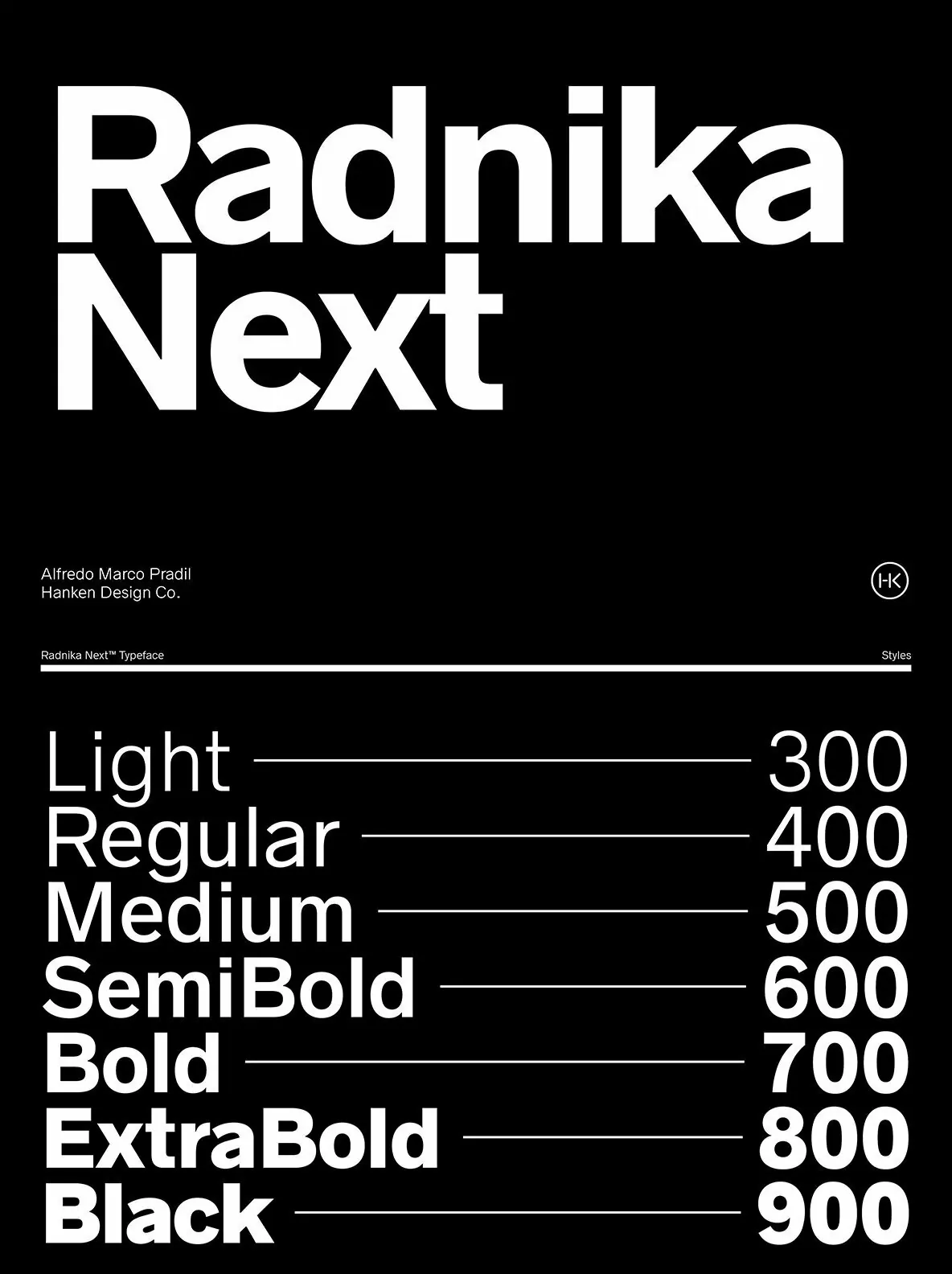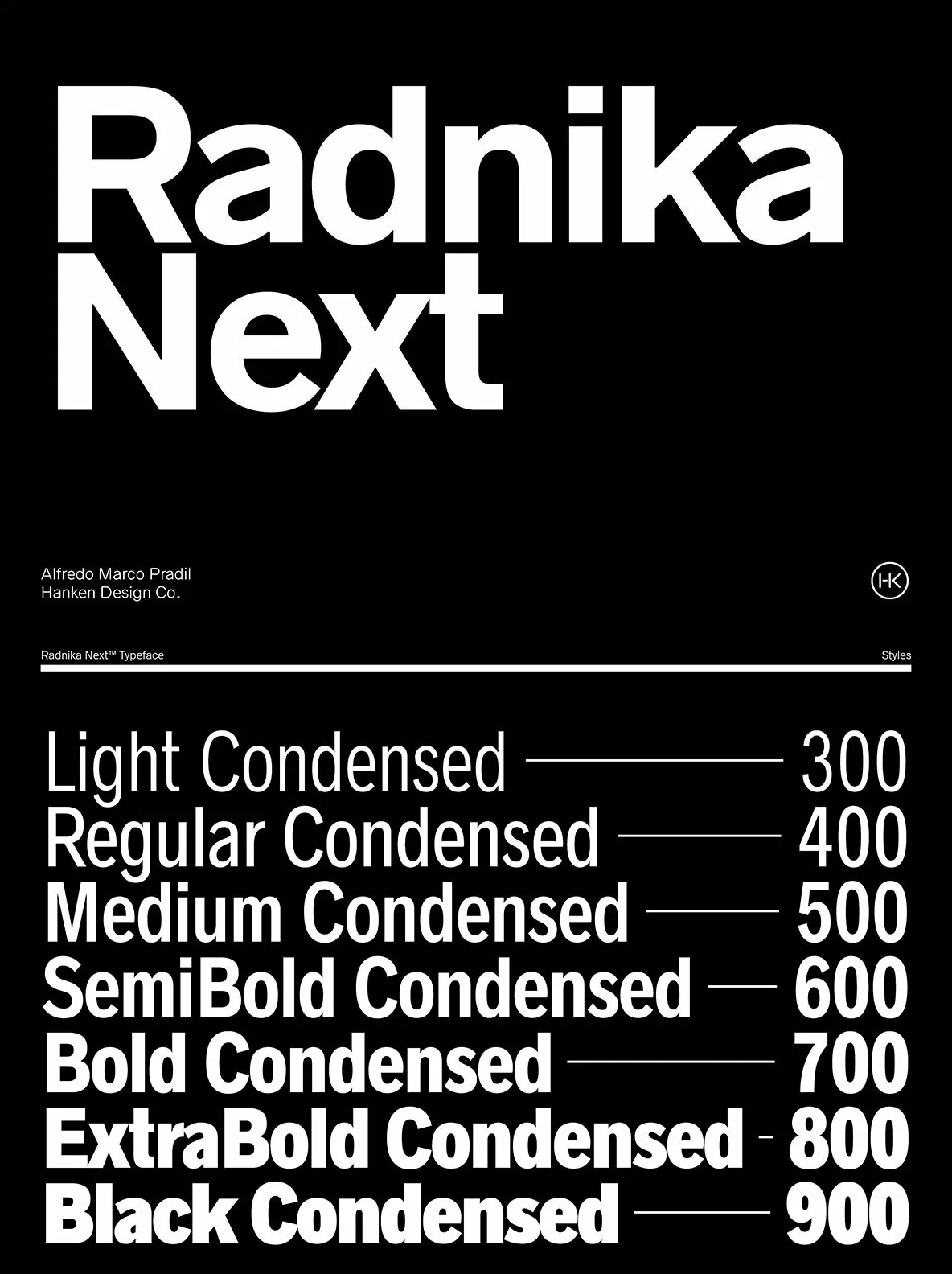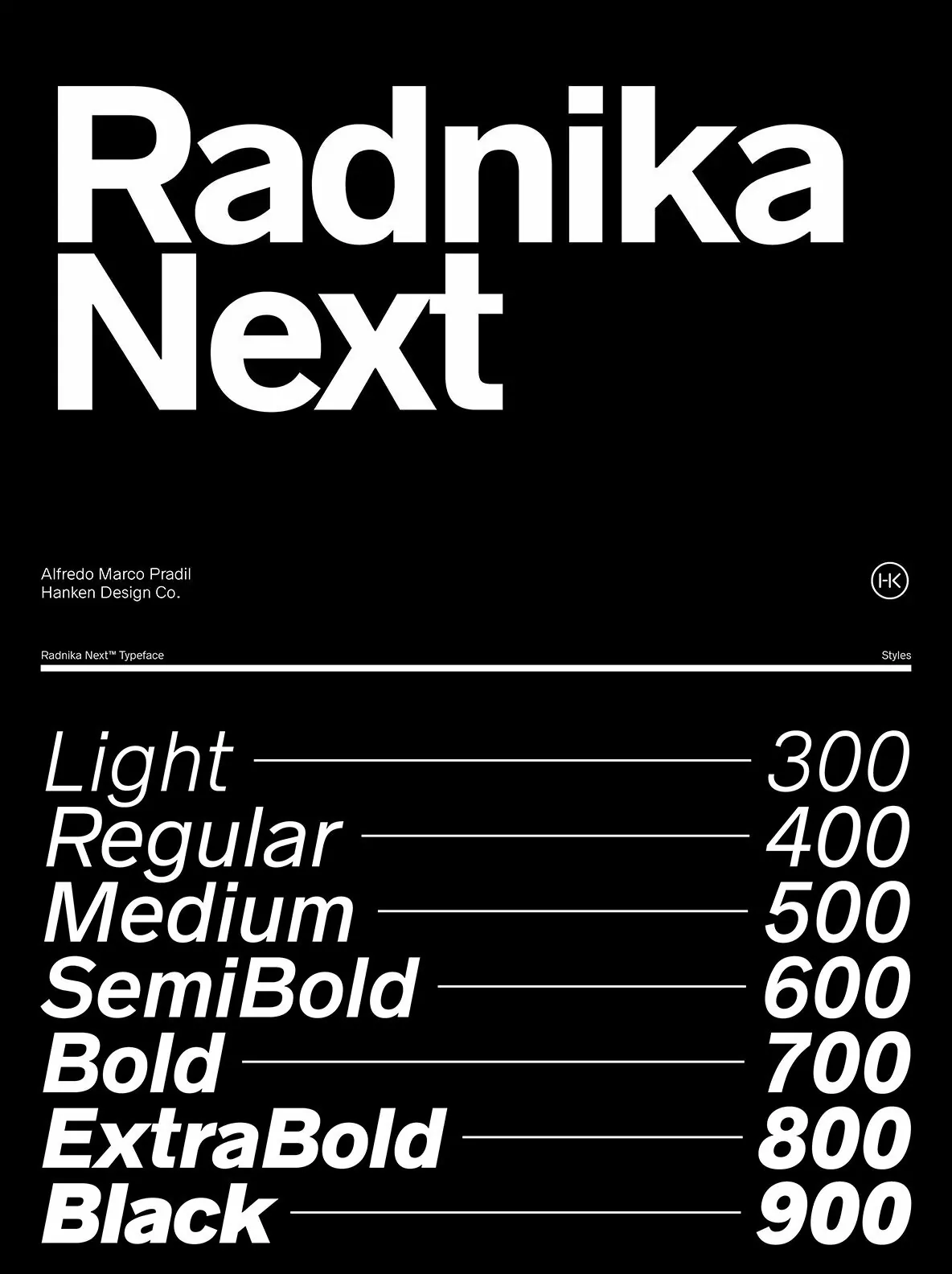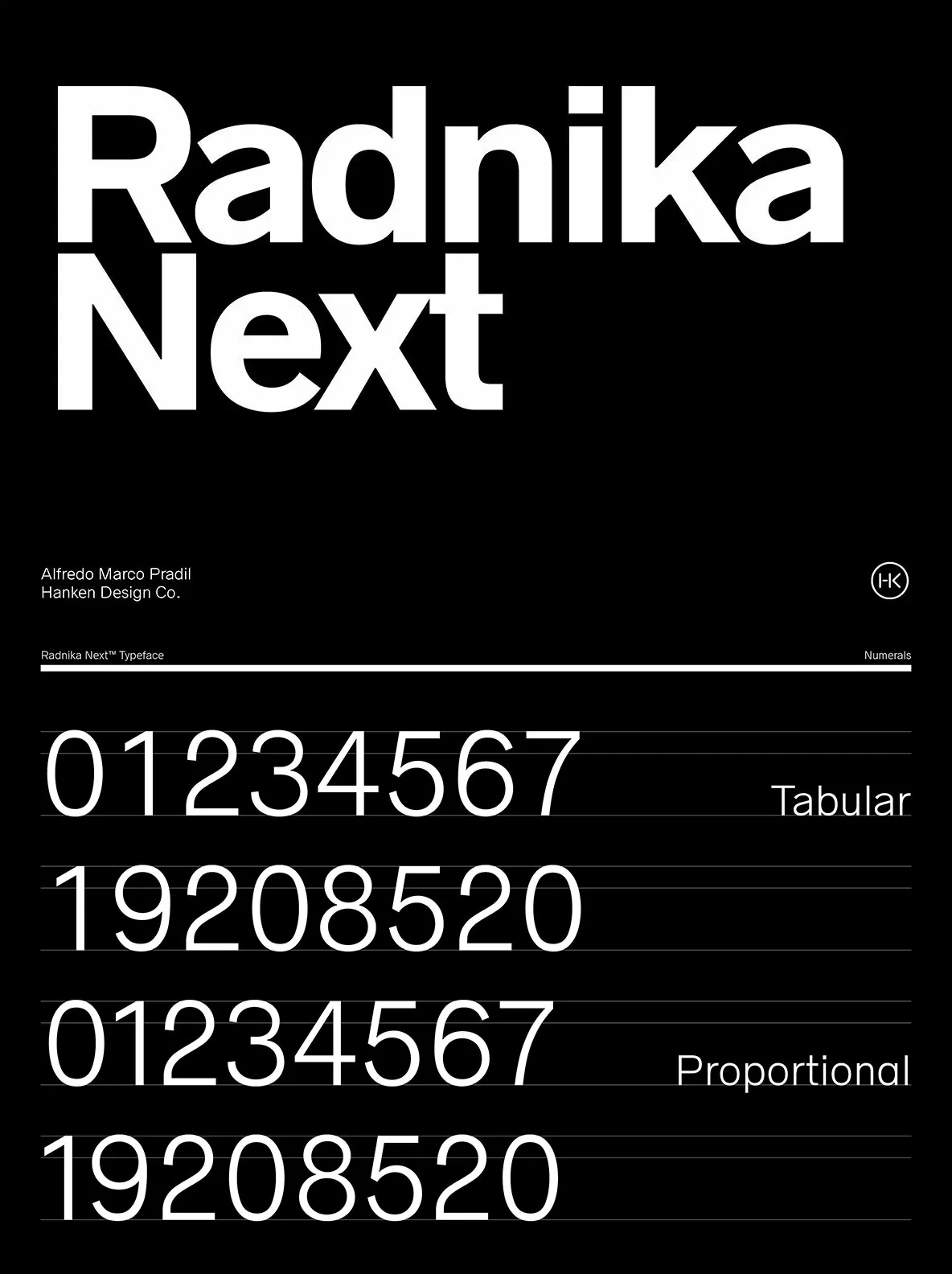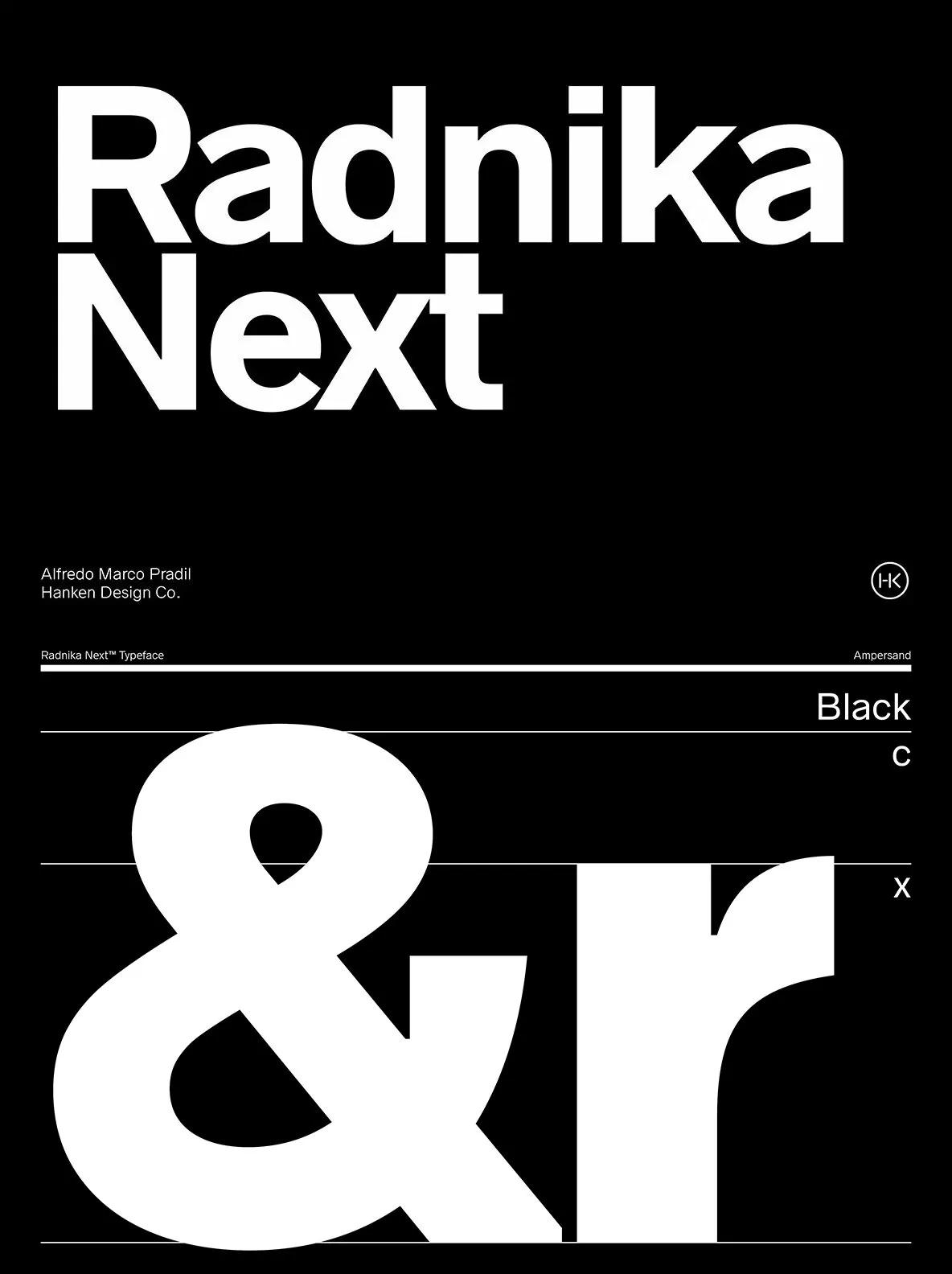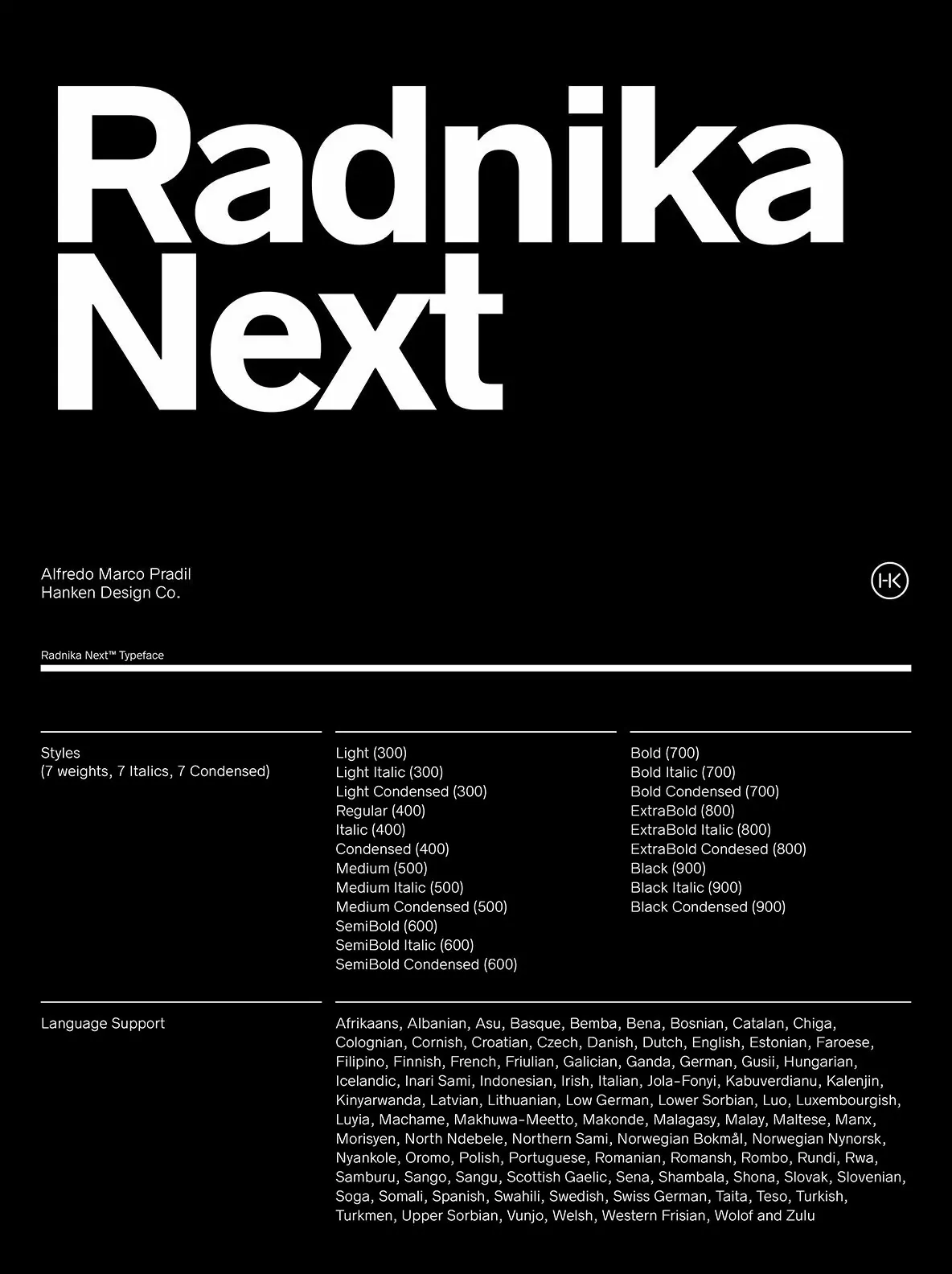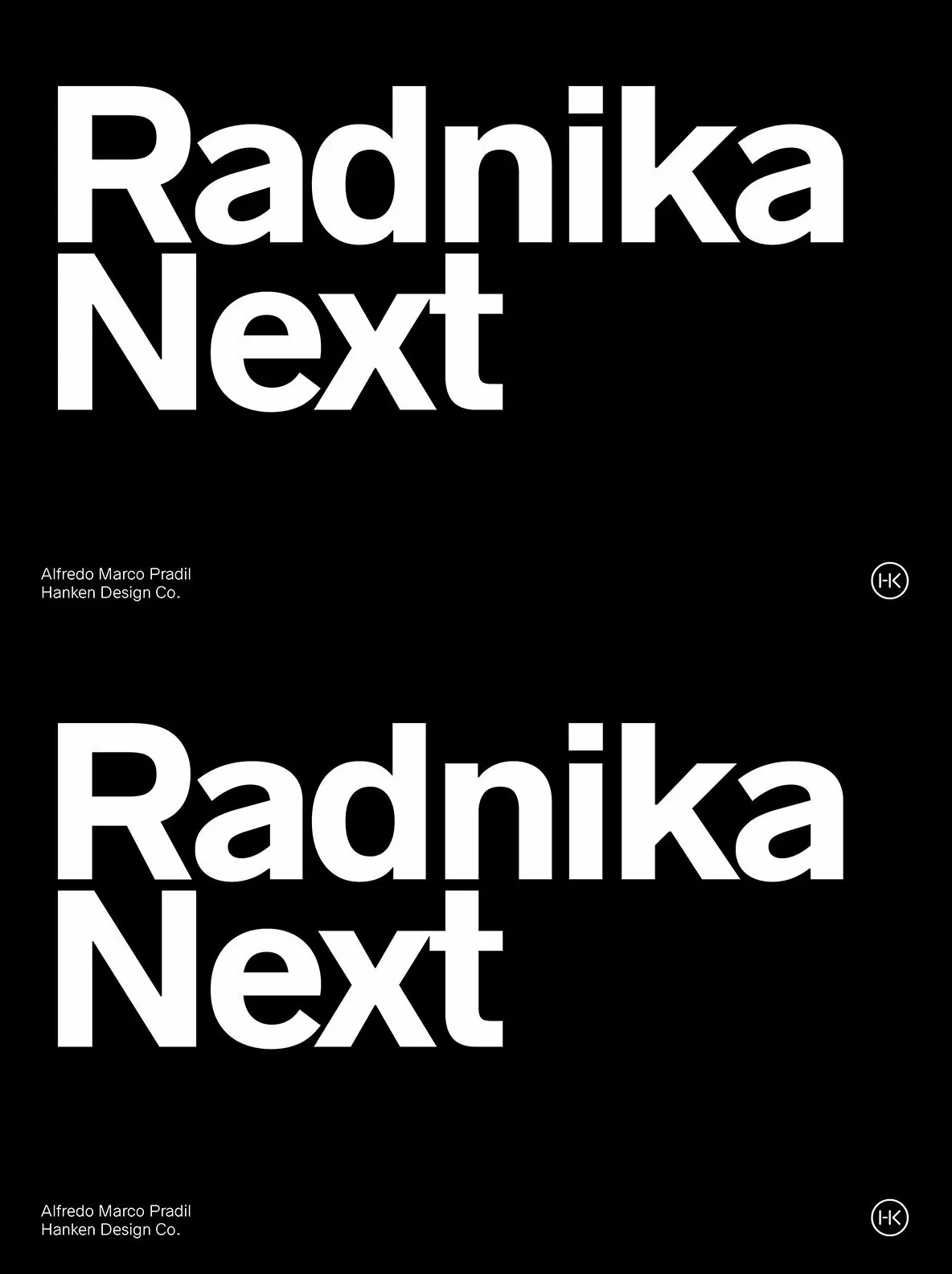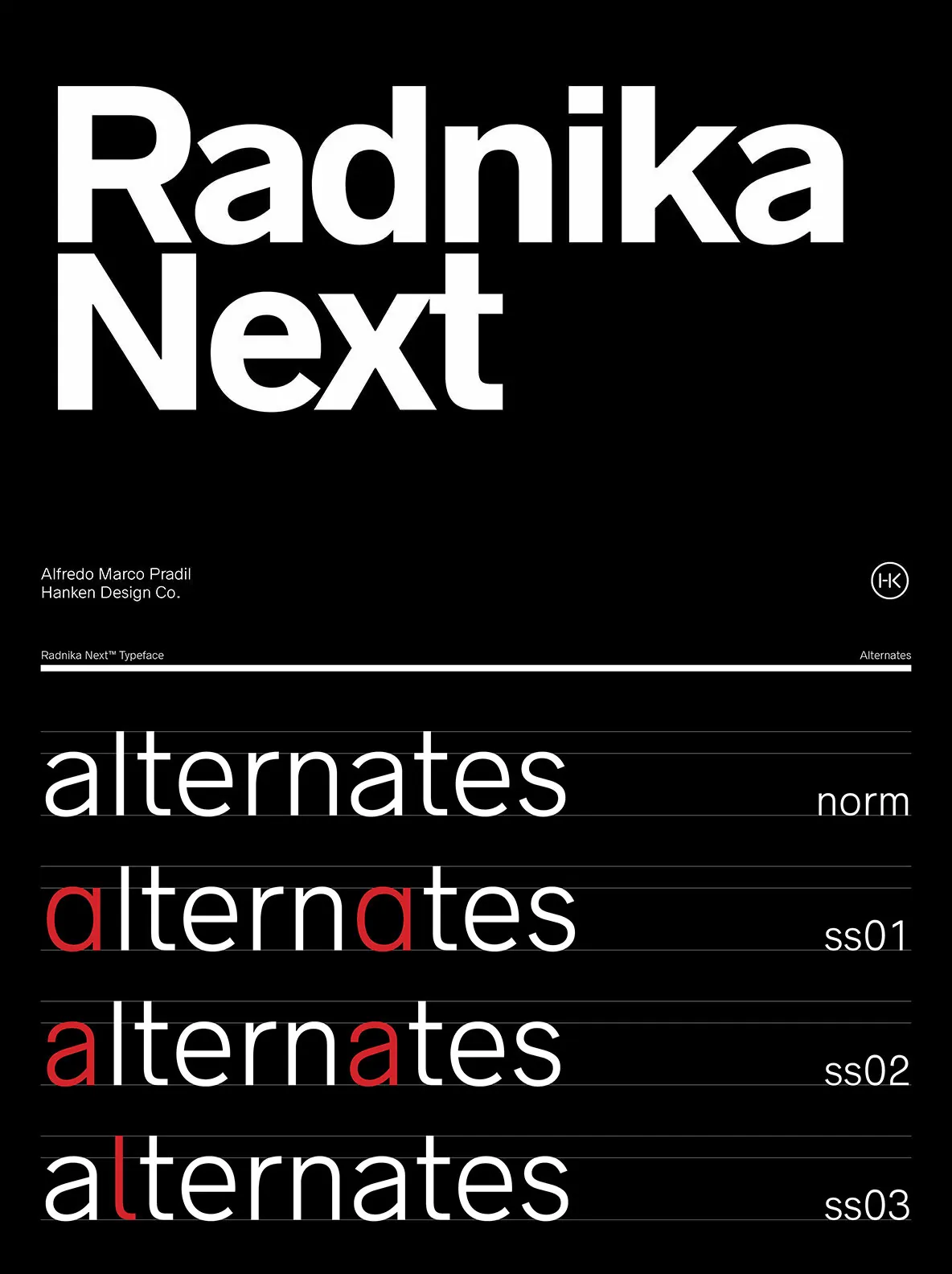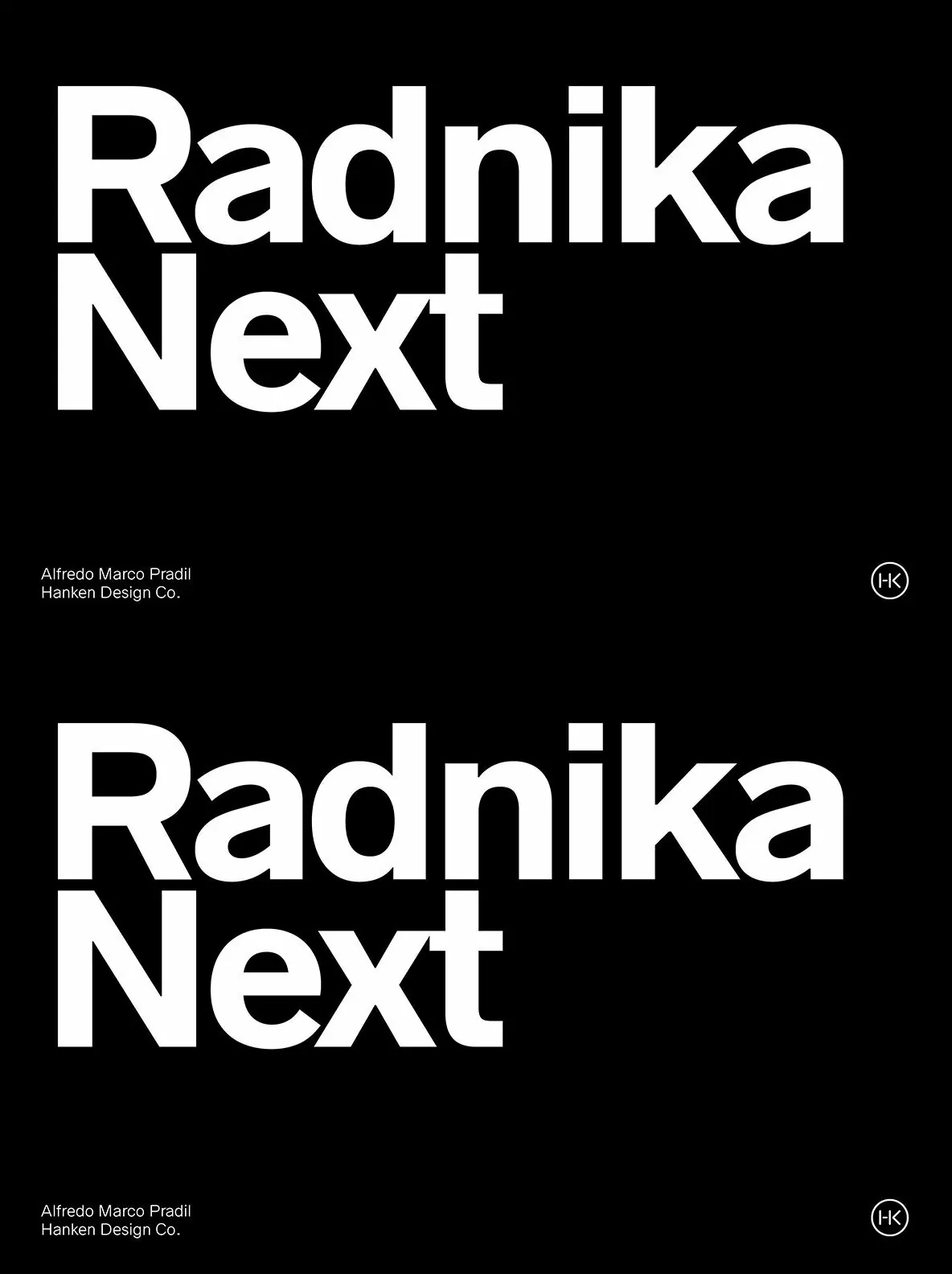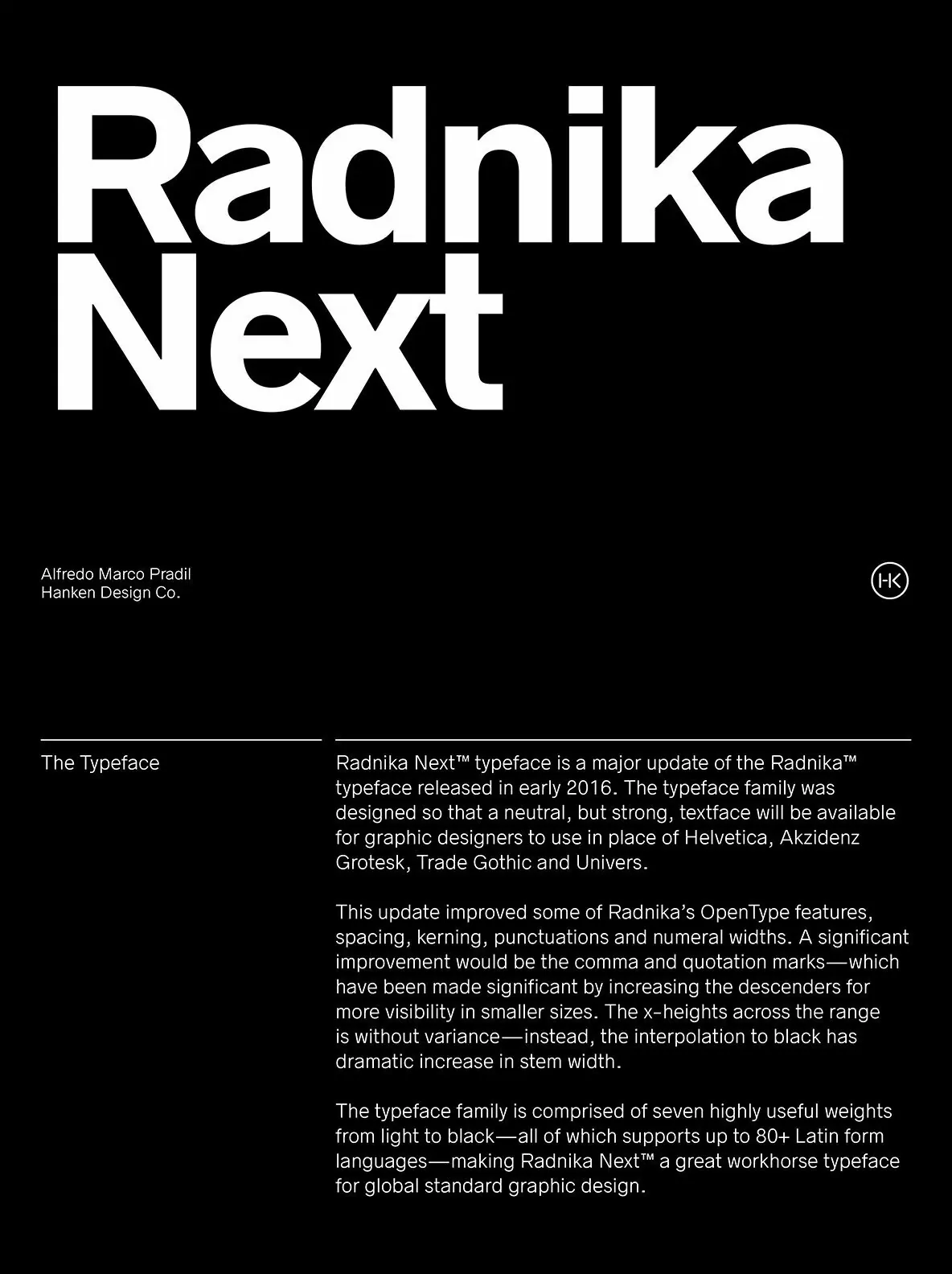
Radnika Next: Versatile Sans Serif With Refined Geometry
Radnika Next presents a polished evolution of the acclaimed Radnika typeface, with refined geometry, improved kerning, precise spacing, and updated ligature handling. Designed as a multi-purpose sans serif, it seamlessly ties together the expressive vigor of 19th-century letterforms with the disciplined clarity of 20th-century design. Its structure creates a harmonious balance, making it suitable for a broad range of applications, from digital interfaces to print media.
The versatility of Radnika Next stands at the forefront. Offering 18 distinct styles in six weights and extensive language support, it adapts effortlessly across contexts. Originally envisioned as an alternative to classic utilitarian typefaces such as Helvetica and Univers, this typeface now excels wherever clarity and functionality are essential. Whether for branding, corporate communications, editorial work, or digital platforms, Radnika Next meets the demands of contemporary design environments.
Features:
18 styles with six distinct weights
Comprehensive language support
Balanced, modern geometry
Refined kerning and spacing for readability
Extensive ligature options
Suitable for branding, corporate use, art projects, advertising, signage, body text, social media, educational materials, and print